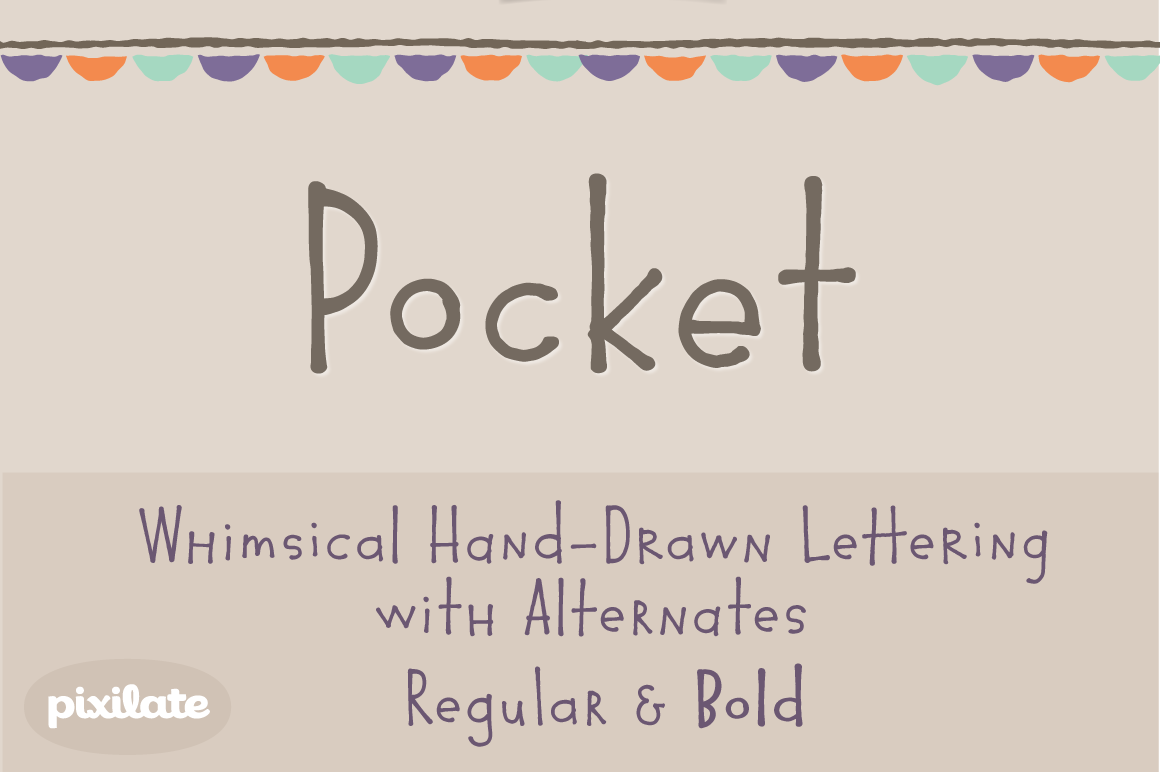
Pocket Px cute font
Inspired by illustration lettering, Pocket has a contemporary, quirky feel. Its combination of narrow and round forms give it a humorous feel.It has support for most western and central European languages. It has alternates for most letterforms, accessible through Opentype features that let you have variations that make it look authentically hand-drawn